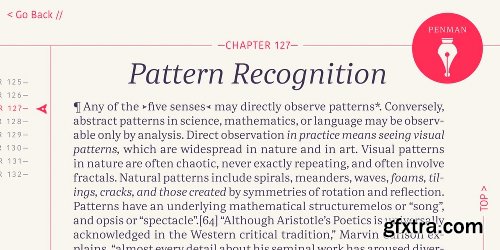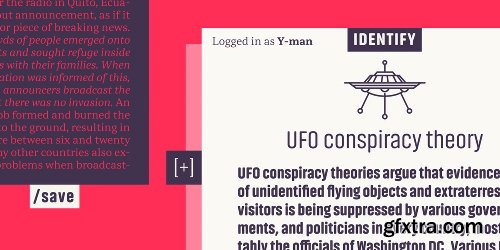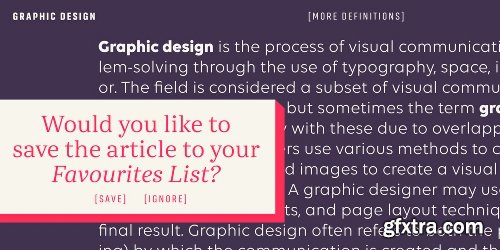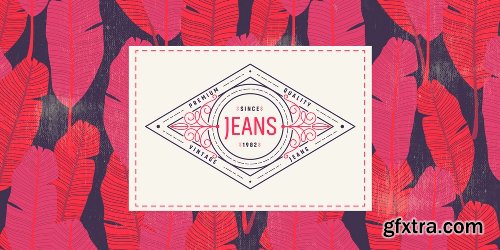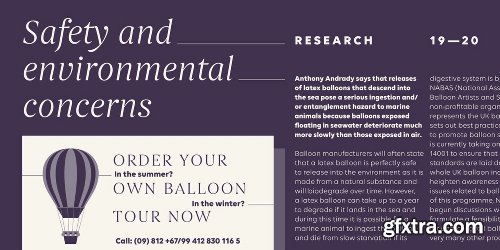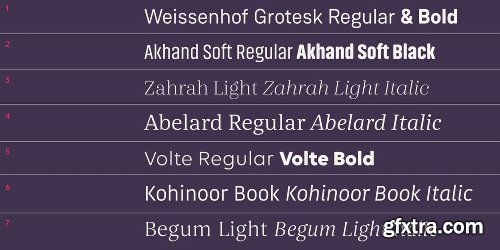
The Best of Indian Type Foundry Font Bundle - 14 Fonts
The Best Of Indian Type Foundry collection brings together 14 beautiful, versatile best selling fonts. The India-based foundry’s catalog is as diverse as it is deep, and this bundle reflects that by offering everything from workhorse text fonts to finely tuned display fonts.
The bundle includes two weights from their flagship typeface Kohinoor – a type system that was developed to support the 780 languages that are written in 11 different scripts across India – as well as fonts from the hugely popular industrial grotesk families Weissenhof Grotesk and Akhand Soft. It also bring in some high contrast with classical serifs Zahrah and Begum, geometric sans Volte and transitional book-face Abelard.
The collection is a powerful toolbox of possibilities for graphic designers and would be very useful in editorial, branding, signage and web applications.